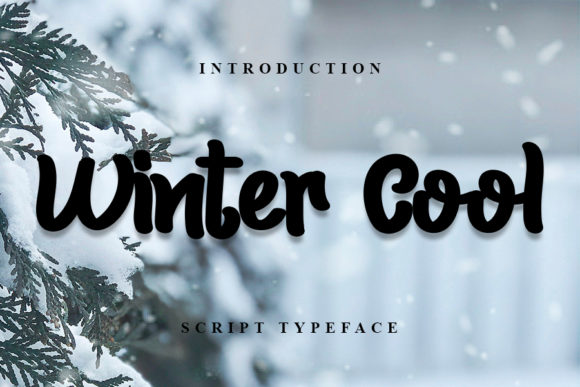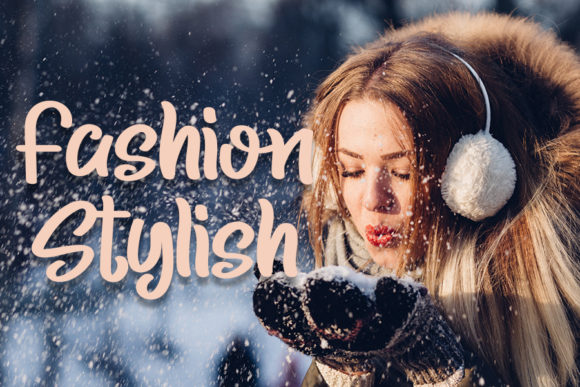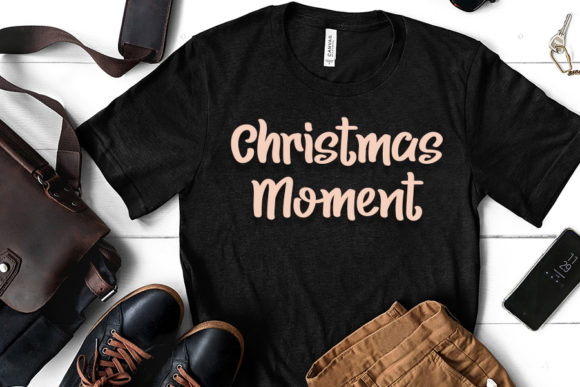
About Winter Cool Font
Winter Cool is a stylish and flowing handwritten font. Friendly and incredibly unique, this font will adapt to a wide variety of designs. Add it to your creative ideas and you won’t be disappointed.